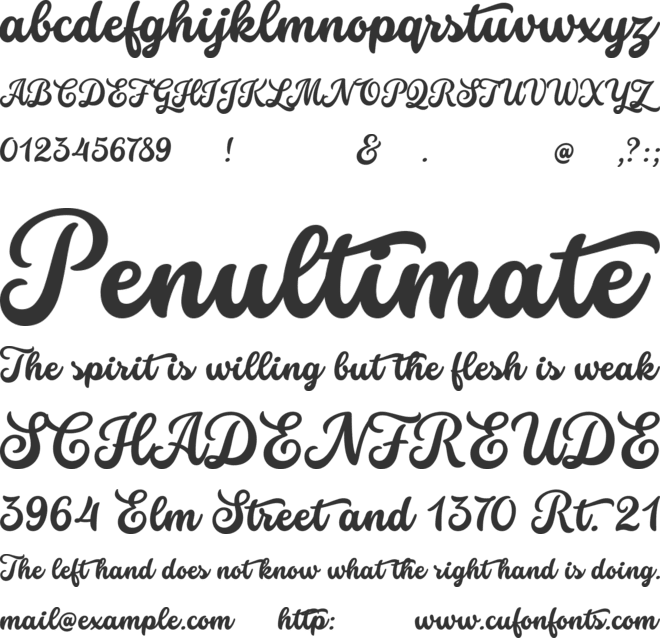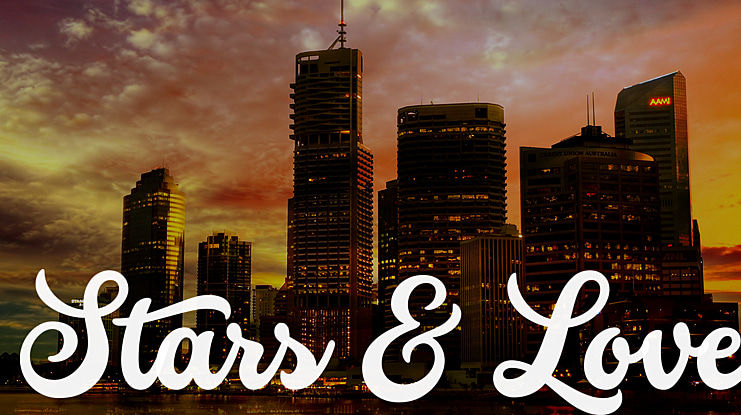
Stars & Love Font
This is a demo version of the bottom heavy instance of Stars & Love font.
notes to the user:
in the demo version lowercase t is included with a longer swash crossbar by default as you can see on the poster that is originally a stylistic alternate. in some words, it may overlap with other letters like lowercase l or the dot above the i.
please also note that typing words with all caps would not look good stylistically as this is a script font and caps are meant to be designed to fit well with lowercase text.
The full version consist of 2 variations of the font, a bottom heavy version and a regular instance. This demo is made with the bottom heavy one.